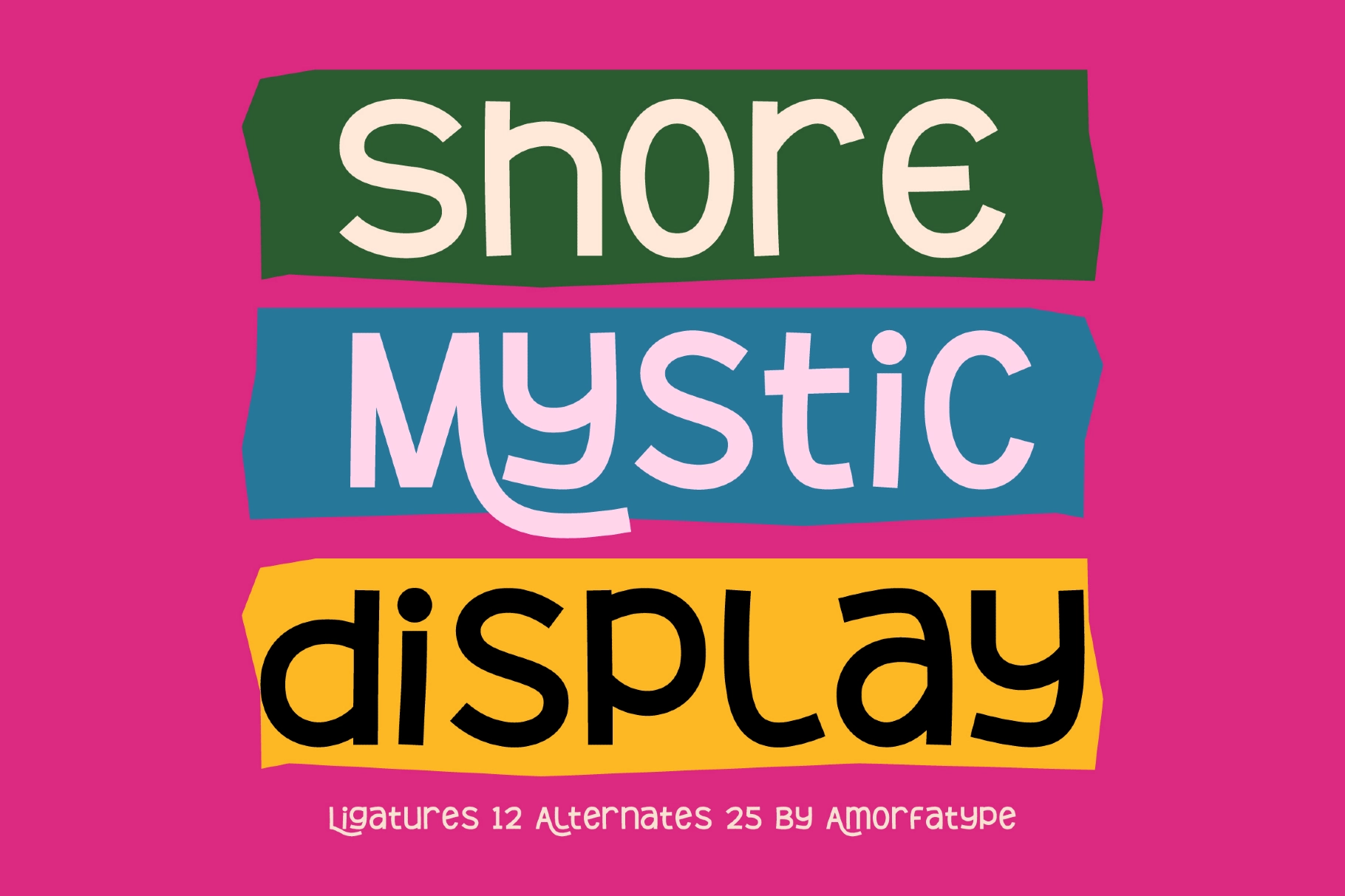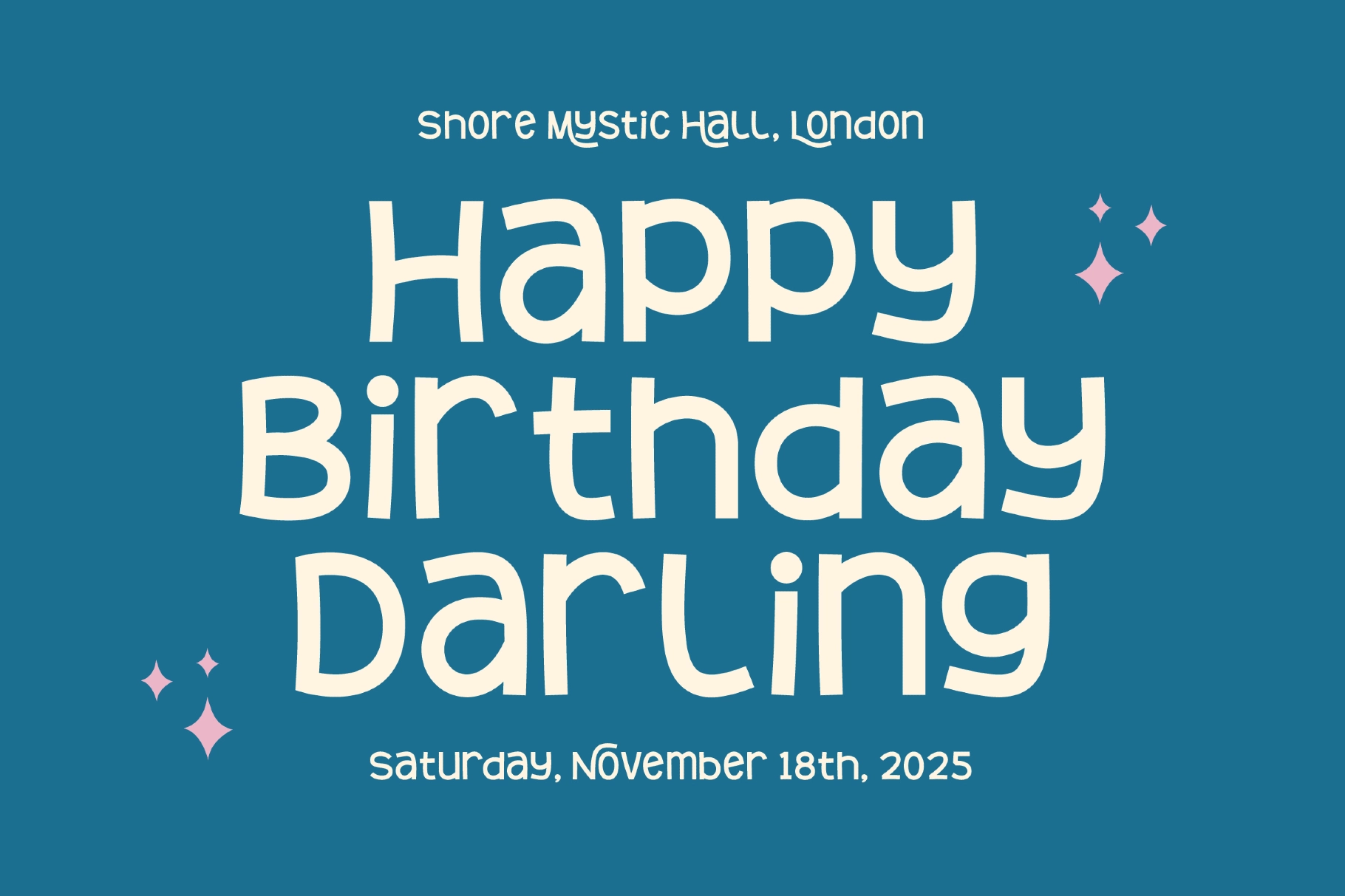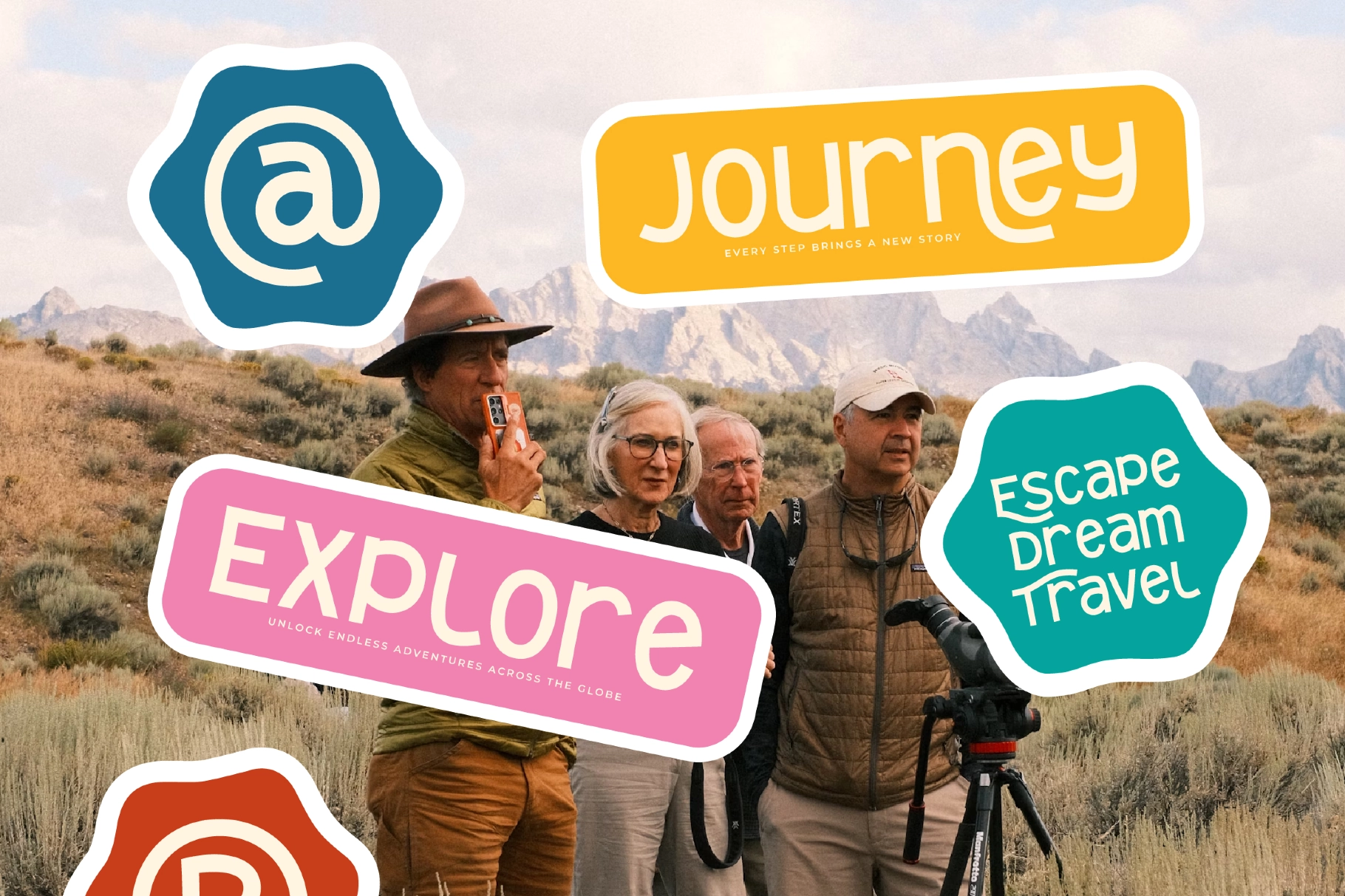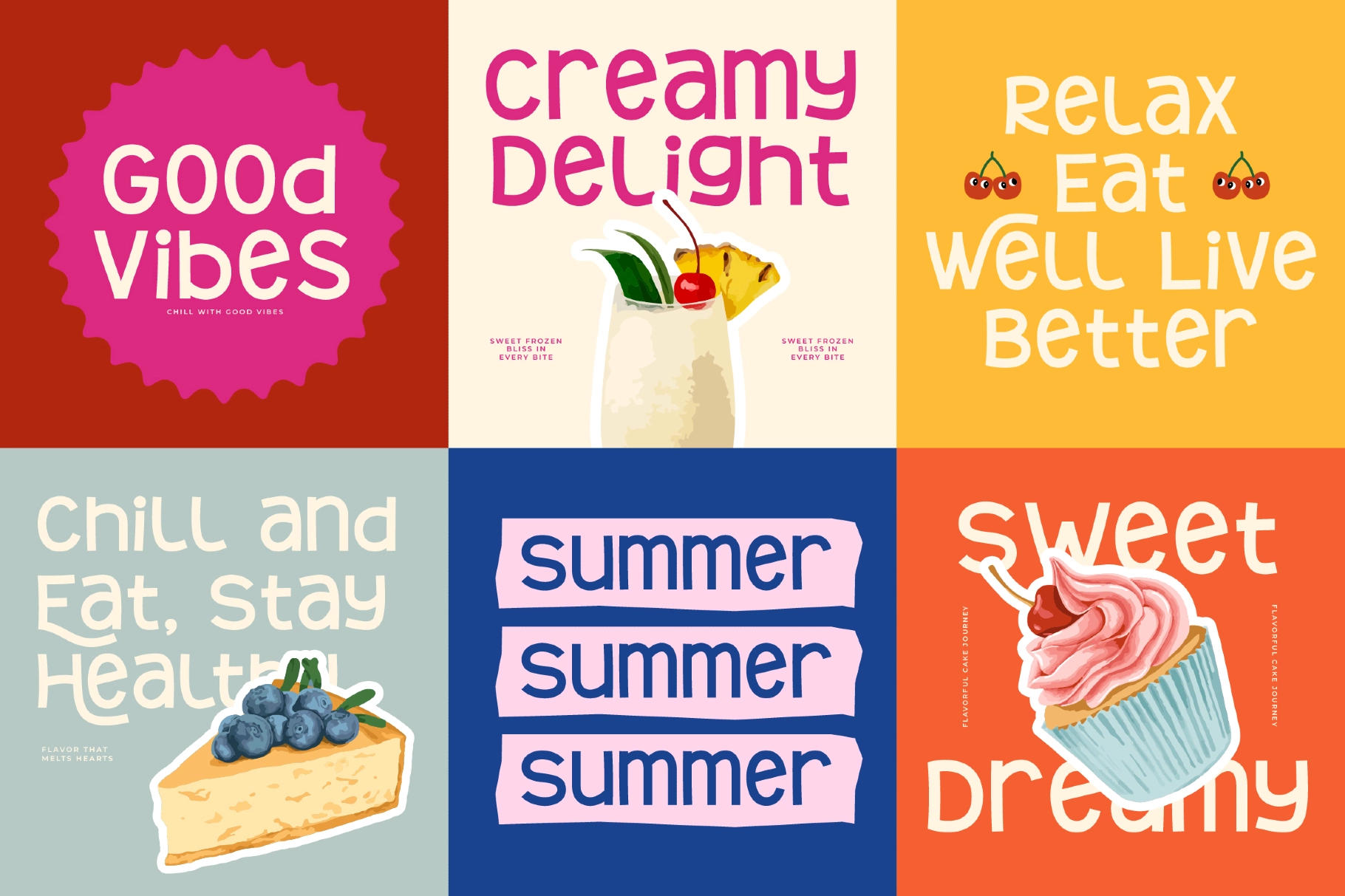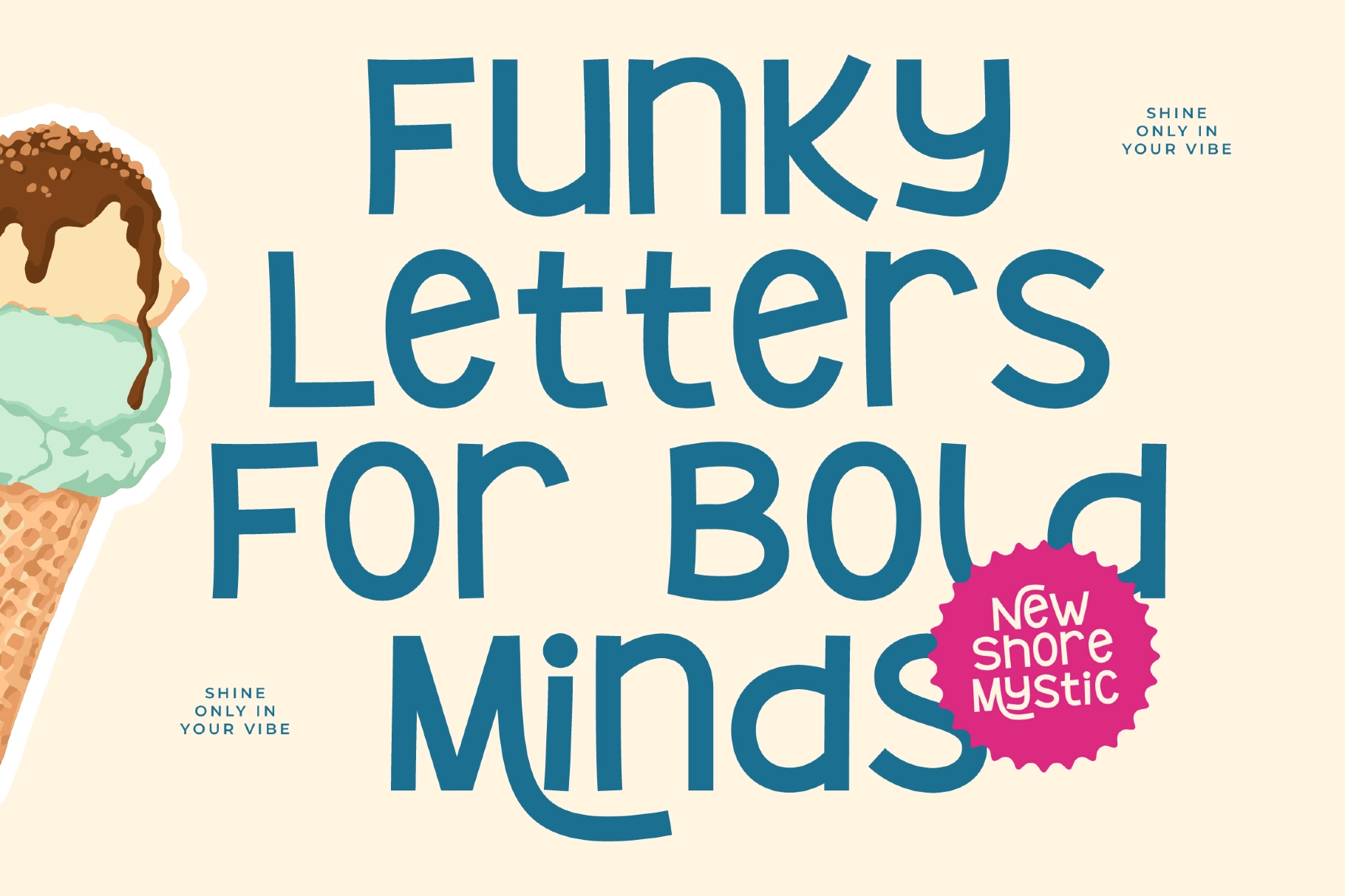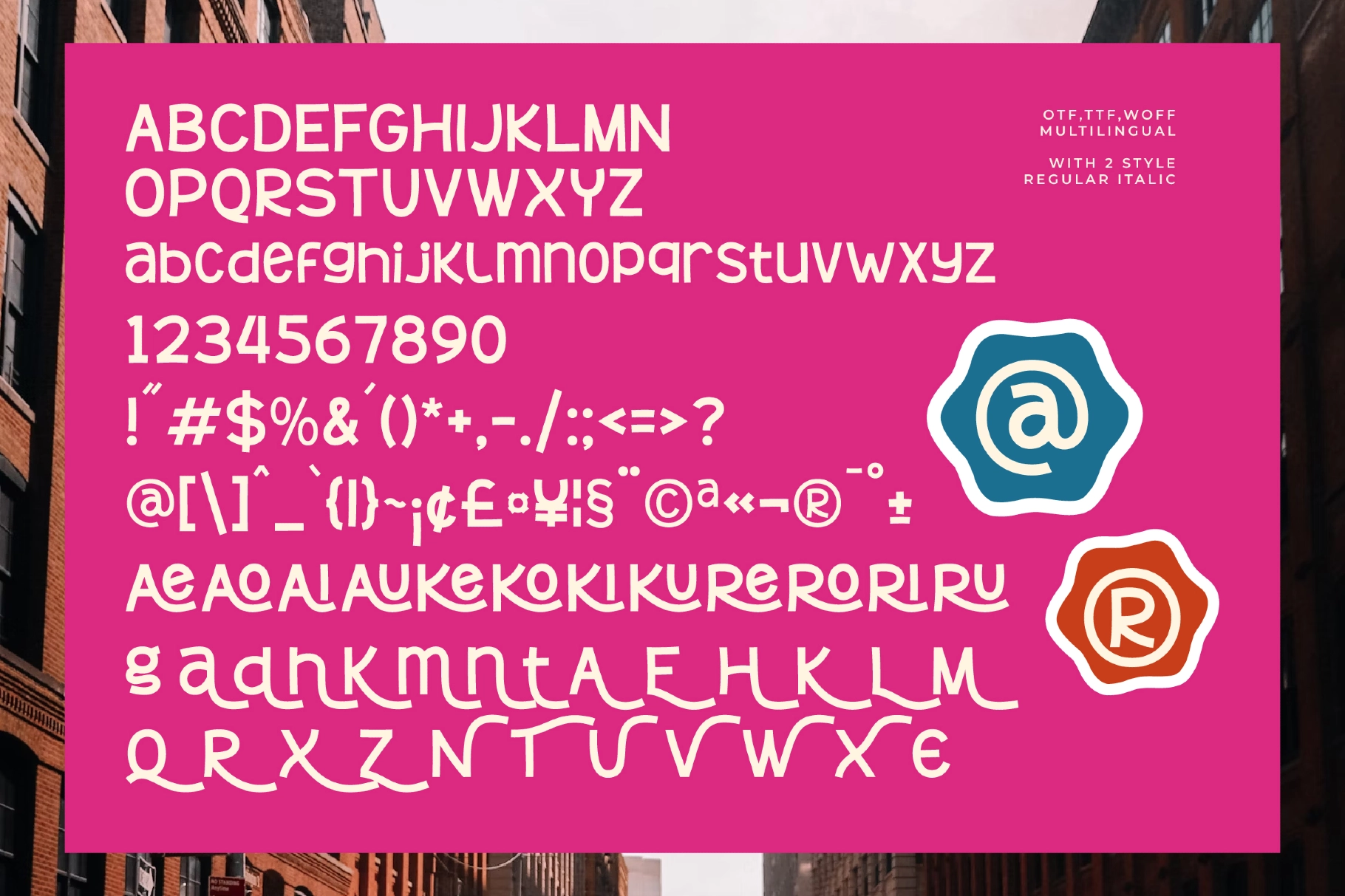
Shore Mystic - Playful Display Font
This playful display typeface has quirky letterforms, organic shapes, and a cheerful hand-drawn rhythm . Its bold sans serif structure keeps titles easy to read, while alternates and ligatures add variation for friendly, expressive layouts.
Shore Mystic is a great fit for children’s books, cartoon titles, toy packaging, poster design, creative branding, kids’ apparel, sticker packs, classroom materials, social media graphics, event flyers, product labels, playful logos, and more. The wide glyph set gives designers room to create lively combinations across short phrases, headlines, and character-rich identity work.
- 25 alternates & 12 ligatures